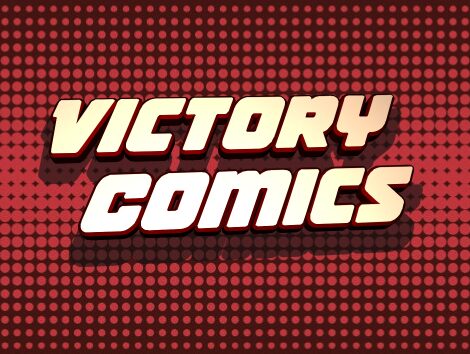
Victory Comics Condensed Ital
Victory Comics Condensed Italic font by Iconian Fonts is a bold, italicized sans-serif with geometric forms and dynamic, modern features. With its uniform stroke weight, dramatic shapes, strong contrasts and an energetic mood this type of letters defines strenght and power in every word. The letters has been designed along the same circumference lines: arched corners match the geometry of the negatives spaces completing each other.
Victory Comics Condensed Italic works well as display materials for striking impact to posters , graphic design projects, branding schemes and advertisements or as editorial typeface for stickers , web pages about lifestyle content or artistic photo/picture captions among others.